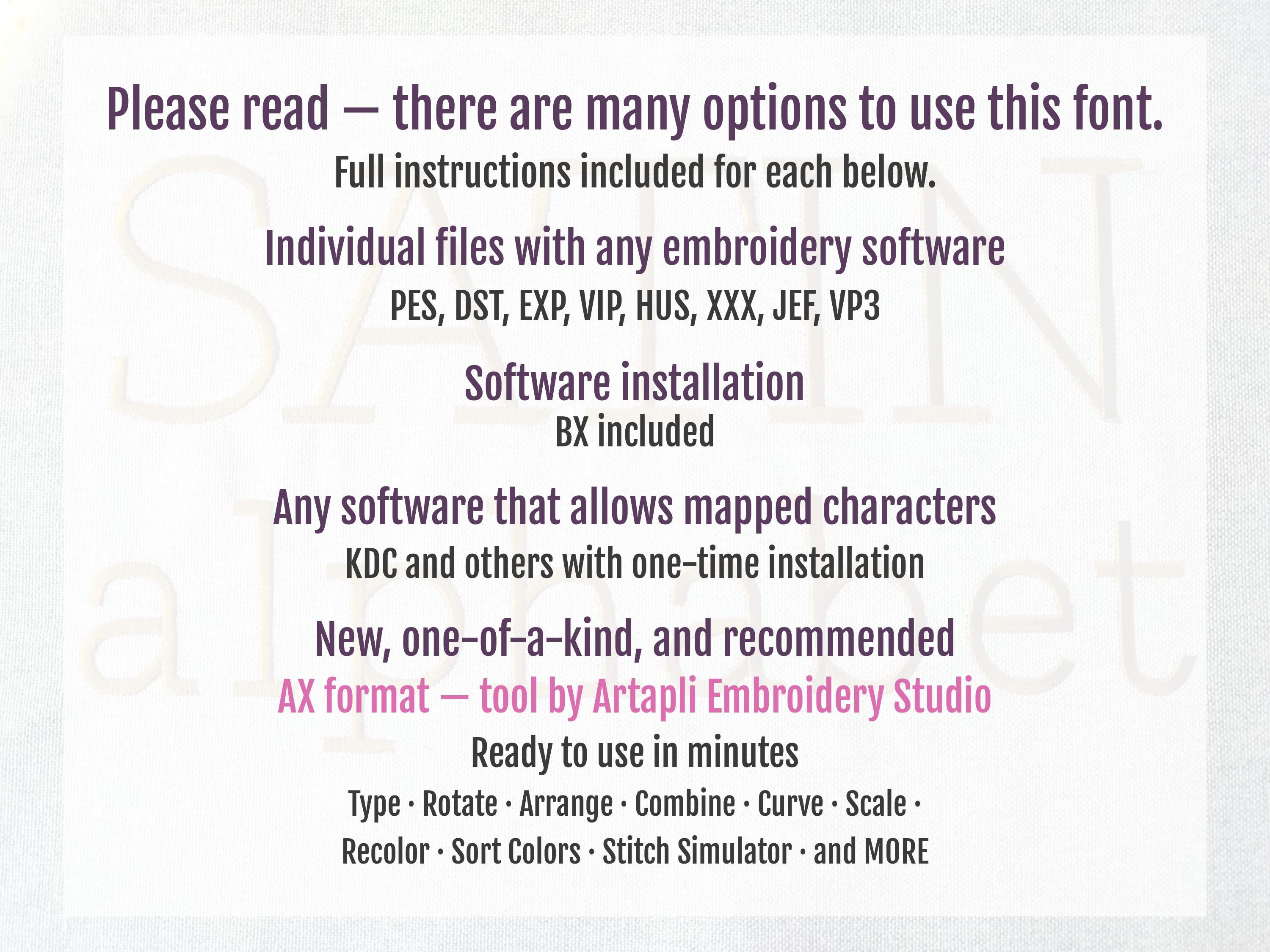
Satin stitch Font Classy embroidery font alphabet embroidery machine designs many sizes 0.8 up to 4.4 inches monogram block font BX included
Whole alphabet: uppercase and lowercase letters, numbers, and punctuation.
This font is compatible with the Boat font, combine and merge as you wish:
perfect basic font, worked great!